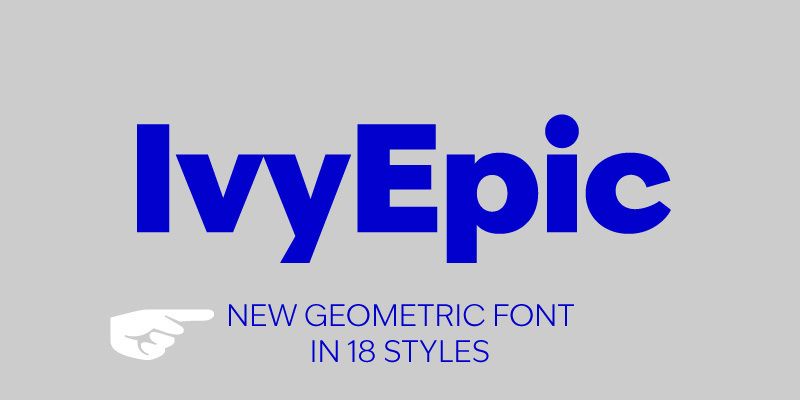
IvyEpic Font Free Download is a bold and stylish display typeface that combines modern and geometric design elements with a unique, attention-grabbing personality. With its clean lines, strong presence, and distinct character shapes, this font is perfect for large headlines, logos, posters, branding, and any creative project that needs to make an impact.
IvyEpic Font Free Download features precise letterforms and sharp angles, creating a sense of strength and sophistication. Its bold weight allows it to stand out in both print and digital designs, making it a versatile option for a wide variety of uses, from editorial layouts to packaging and promotional materials.
This font pairs well with minimalist designs, clean sans-serifs, or contrasting typefaces, offering flexibility in creating visual harmony across your projects.